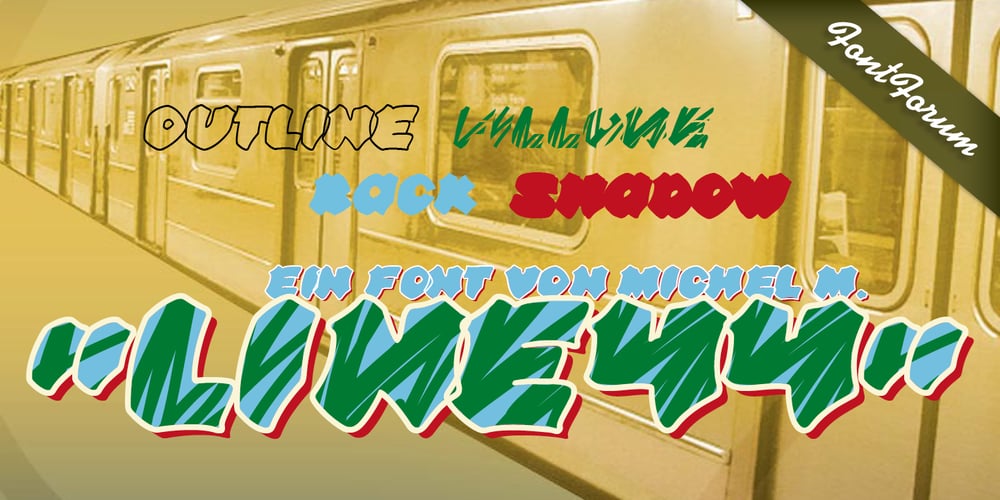
Line44 Font Family was designed by Michel M. and published by URW Type Foundry. Line44 contains 4 styles and family package options. Remembering us of the early graffiti on the New York subways. And similar to creating and producing a graffiti, a “Piece”, also the styles of Line44 are superposed in layers.